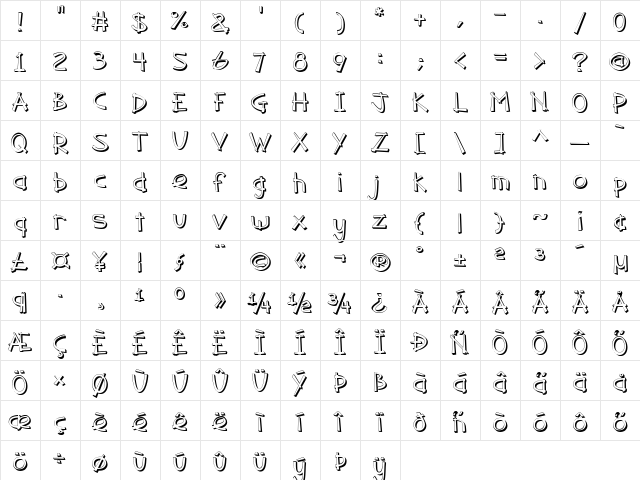
Rany Outline Regular Font Preview
Rany Outline Regular
Design Context for Rany Outline Typeface
Rany Outline is built around its visual character rather than neutral utility — its distinctive forms are designed to make an impression at display sizes.
Font Pairing: Pair with a clean neutral sans-serif for body copy to let Rany Outline's character lead without overwhelming the composition.
Pro Tip: Use Rany Outline exclusively at display sizes — it was designed to be seen, not read at length. Let a neutral companion handle body copy.